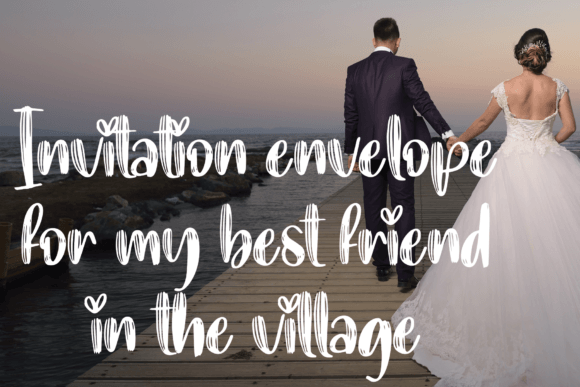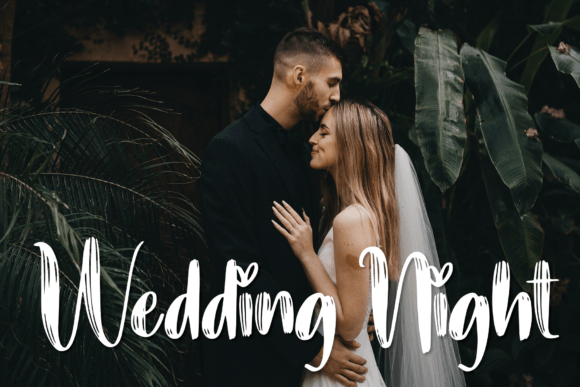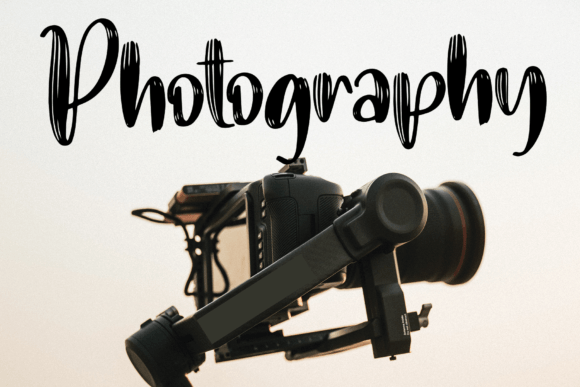
Outside Workspace is a creative handwritten font.
It’s perfectly suitable for wall displays, wedding invitations, social media post logos, advertisements, product packaging, product designs, labels, photography, watermarks, invitations, stationery, and any project that requires taste handwriting .
Outside Workspace Font offers exceptional quality and versatility, making it a valuable addition to your design toolkit. Whether you’re creating for personal projects or commercial use, Outside Workspace Font delivers professional results.